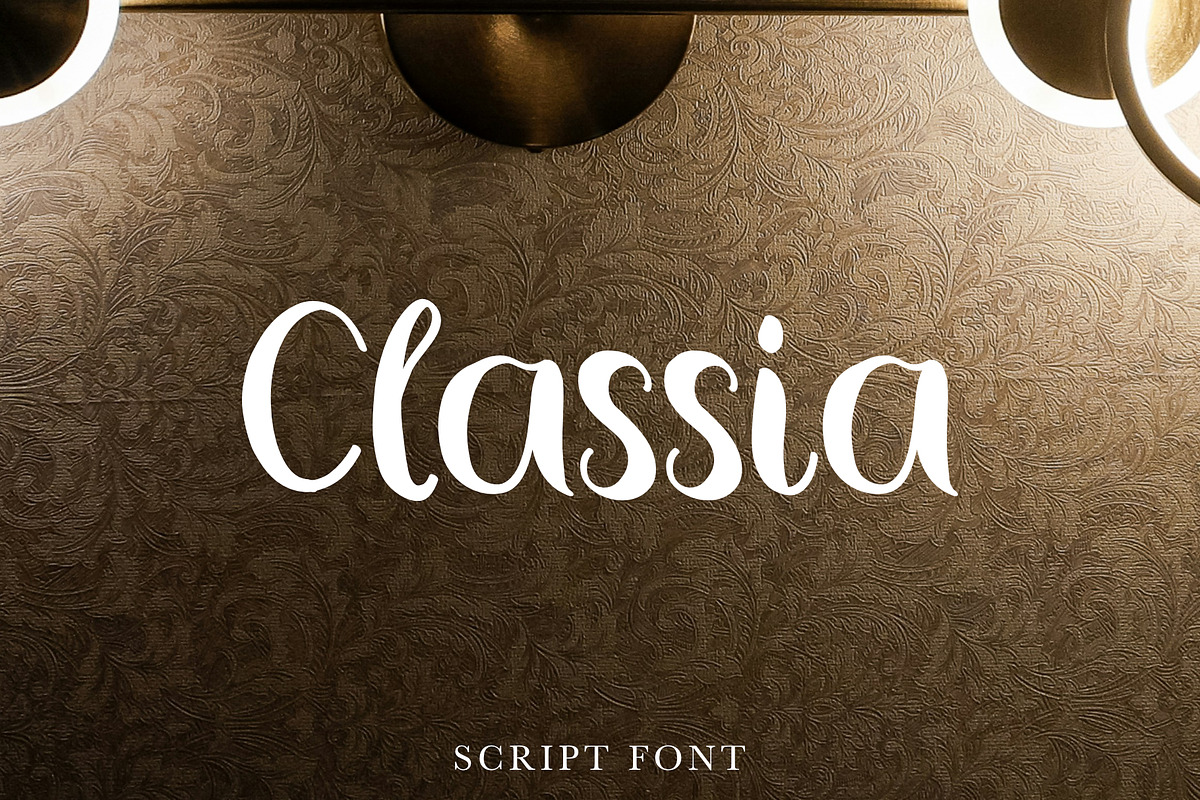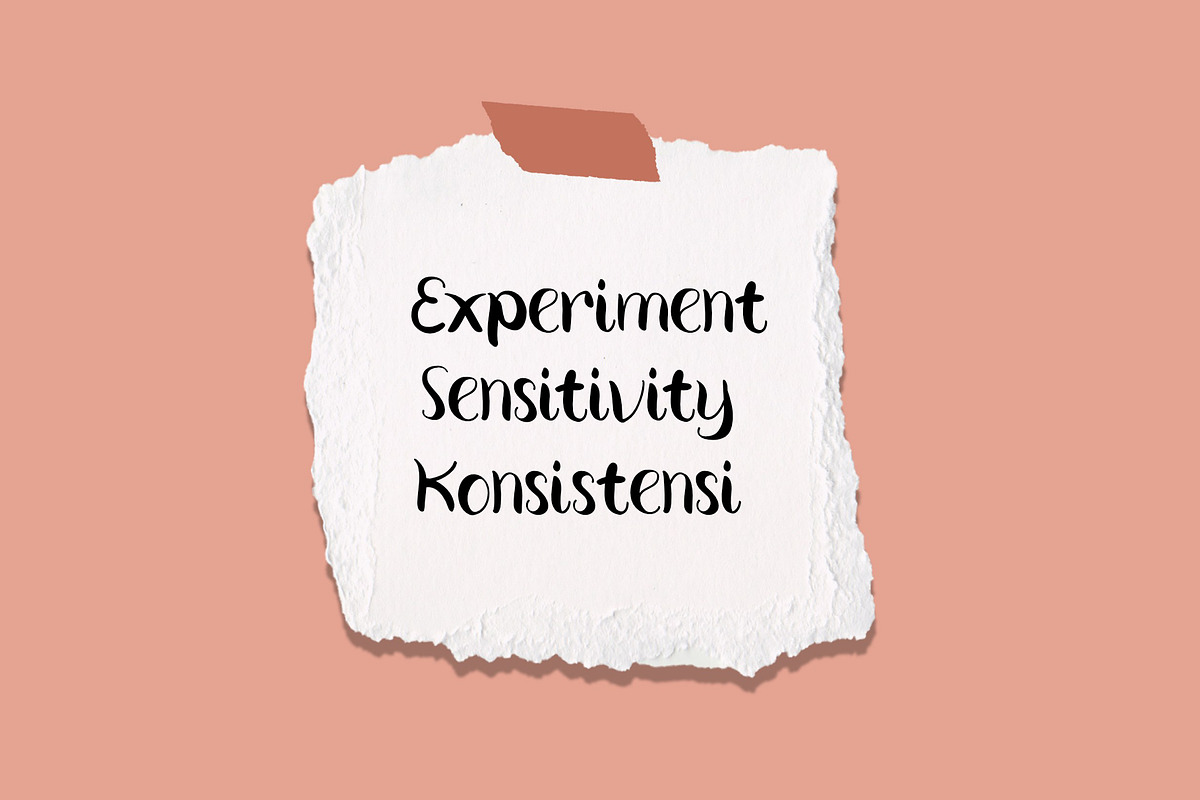
Classia
Introducing Classia hand drawn font! This modern, elegant handwritten script font with lovely, large capitals is perfect for any project. It would be lovely for invitations, branding, logos, posters, magazines, quotes, posters, stickers, t-shirts, and anything.